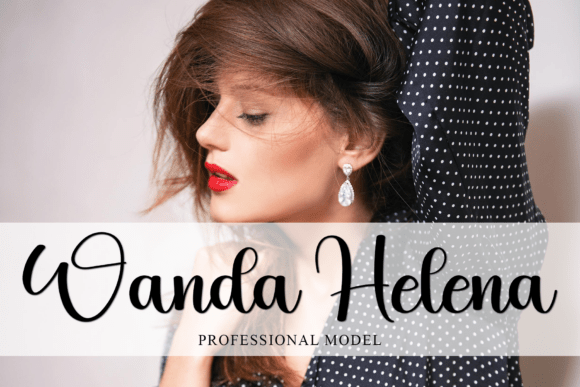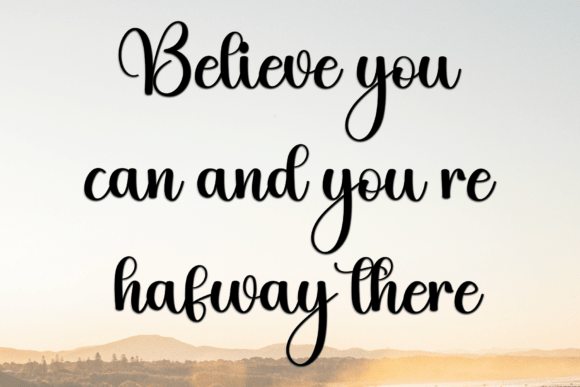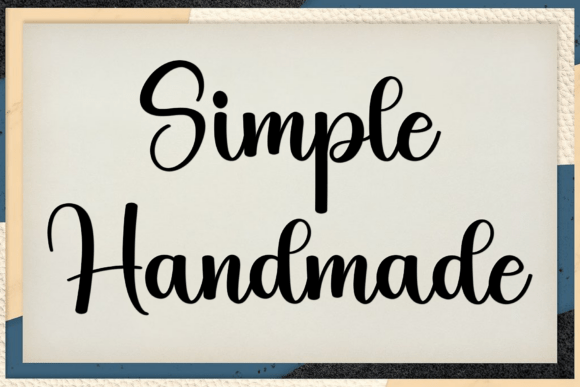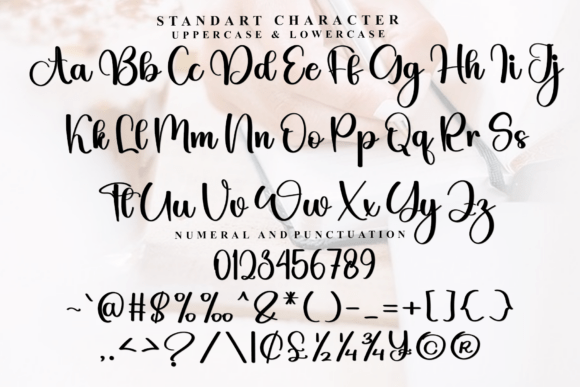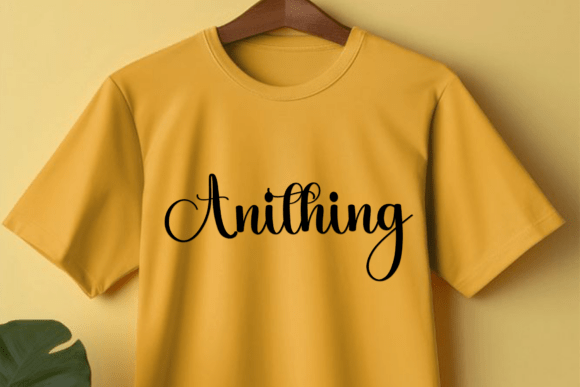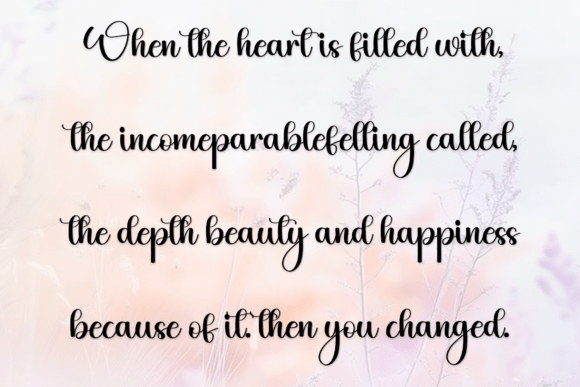
Steeping Your Designs in Elegance
Have you ever been sipping a warm cup of coffee on a lazy Sunday morning, feeling inspired by the delicate dance of steam rising from the cup? For many creatives, that moment of serenity sparks a burst of imagination and fuels their passion for design. And what better way to channel that feeling into your work than with the perfect font?
Enter the Barista Font, a charming and whimsical handwritten font that’s designed to add a touch of elegance to your crafty creations. Whether you’re working on a letterhead, title, or stationery, this sweet and delicate font is sure to captivate your audience. With its intricate swashes and original look, Barista Font is a valuable addition to any designer’s toolkit.
Barista Font Key Features
- Unique Characteristic: Barista Font features a unique blend of modern and vintage elements, with intricate details and subtle textures that evoke a sense of warmth and sophistication.
Barista Font Review
Overall, I was excited to dive into the world of Barista Font, but unfortunately, my expectations weren’t entirely met. Let’s start with what works well:
- ✨ It has a unique, modern feel to it, perfect for coffee shops and cafes.
- ✨ The font is highly legible, making it suitable for menus and labels.
- ✨ It’s quite versatile and can be used for various branding and marketing materials.
- ⚠️ The font lacks a clear personality and may not stand out in a crowded market.
- ⚠️ It may not be the best choice for more formal or professional branding.
- ⚠️ The font could benefit from more font weights and styles to increase its versatility.
Overall, I’d give Barista Font 3 out of 5 stars. While it has its strengths, it falls short in some areas. If you’re looking for a unique, modern font for a coffee shop or cafe, it might be worth considering. However, if you’re looking for a more distinctive or professional font, you may want to explore other options.
Common Use Cases for Barista Font
Barista Font is ideal for creating unique and eye-catching headings, titles, and logos. It’s also great for adding a touch of elegance to your typography in designs, documents, and presentations.
Use Barista Font to create a brand identity that stands out from the crowd and makes a lasting impression on your audience.
Alternatives to Barista Font
Montserrat is a sans-serif font designed by Julieta Ulanovsky. It is a modern and clean font, perfect for use in digital products and interfaces. Montserrat is similar to Barista Font in its clean and minimalistic design, but it has a more geometric and urban feel to it. Montserrat is ideal for use in headings, titles, and body text where a modern and sleek look is desired.
Lato is a sans-serif font designed by Łukasz Dziedzic. It is a highly legible font with a modern and friendly feel to it. Lato is similar to Barista Font in its approachable and easy-to-read design, but it has a more rounded and smooth feel to it. Lato is ideal for use in body text and headings where a friendly and approachable tone is desired.